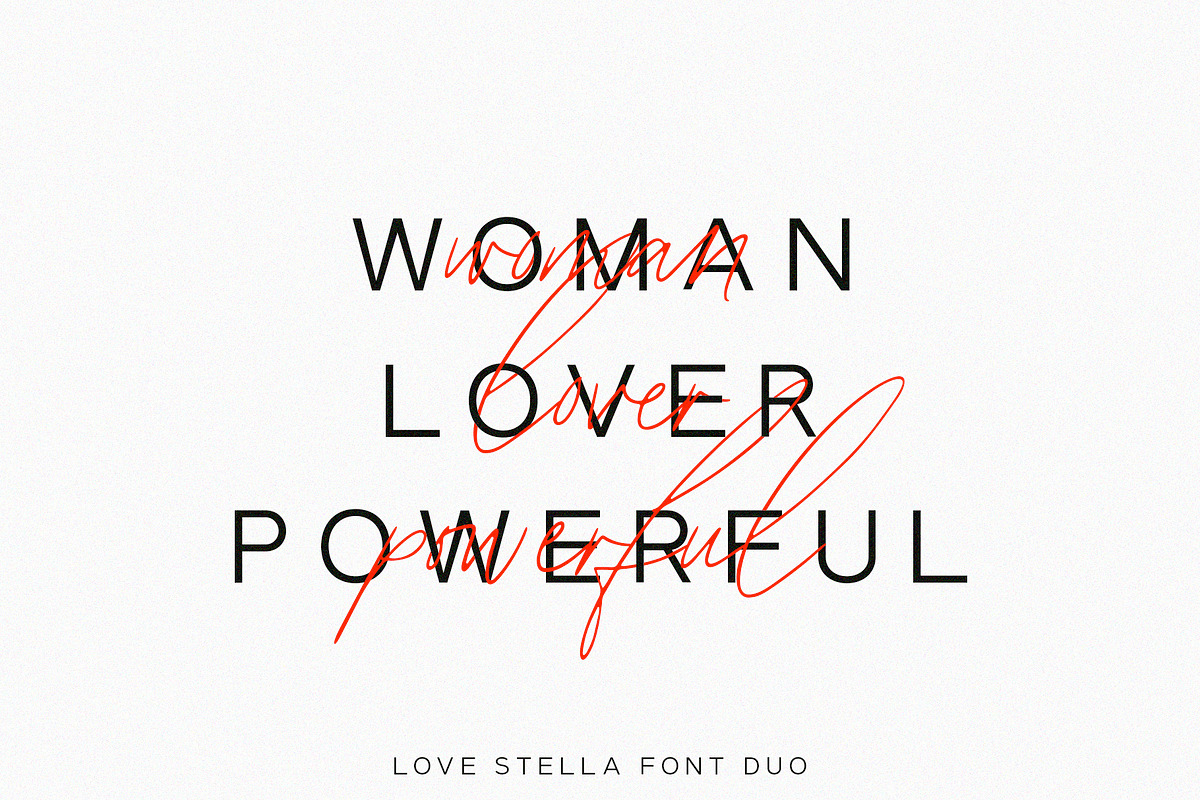
Love, Stella | Feminine Duo
Love, Stella is a powerful feminine font duo that includes a signature script and a gorgeous sans – already matched up and ready to be used together for your next design!
Love Stella Script includes: - Two weights (regular and bold)
- 92 ligatures, which will help make your text look even more hand-written
- Alternate letters to help avoid duplicating letters in your words
- Foreign language accents & characters for the international designer
Love Stella Sans includes: - Three weights (light, regular, and bold)
- Foreign language accents & characters